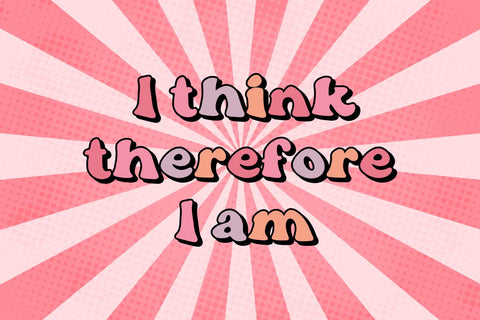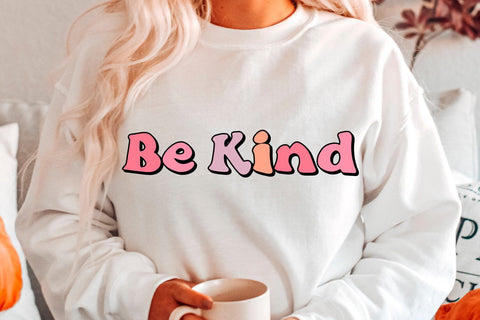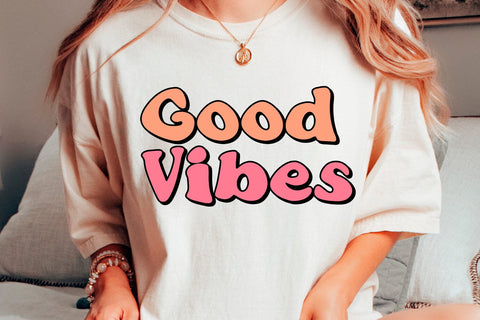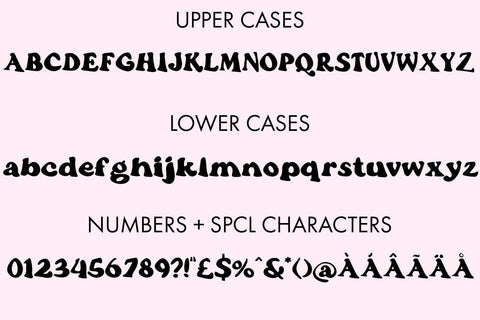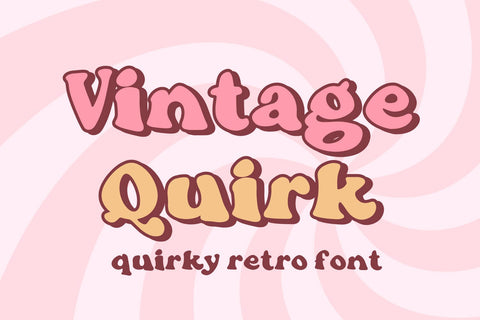
Vintage Quirk - A Handwritten Retro Font
Vintage Quirk: Embrace Retro Charm with Handwritten Quirky Font
Capture the essence of nostalgia and whimsy with Vintage Quirk, a delightful handwritten font that adds a touch of quirkiness to your designs. Inspired by retro aesthetics, this font radiates character and uniqueness, perfect for vintage-themed projects, invitations, branding, and more. Its charming irregularities and playful strokes evoke a sense of nostalgia while adding a modern twist. Stand out from the crowd and infuse your creations with Vintage Quirk's distinct personality and retro allure.
This font can be used for anything such as T-Shirt designs, phone cases, greeting cards, invitations, mugs and so much more! Be creative but most importantly have fun!
- Vintage Quirk - Comes with Uppercase A-Z and lowercase a-z letters, 0-9 numbers, stylistic alternates, limited punctuation and supports Western European Languages